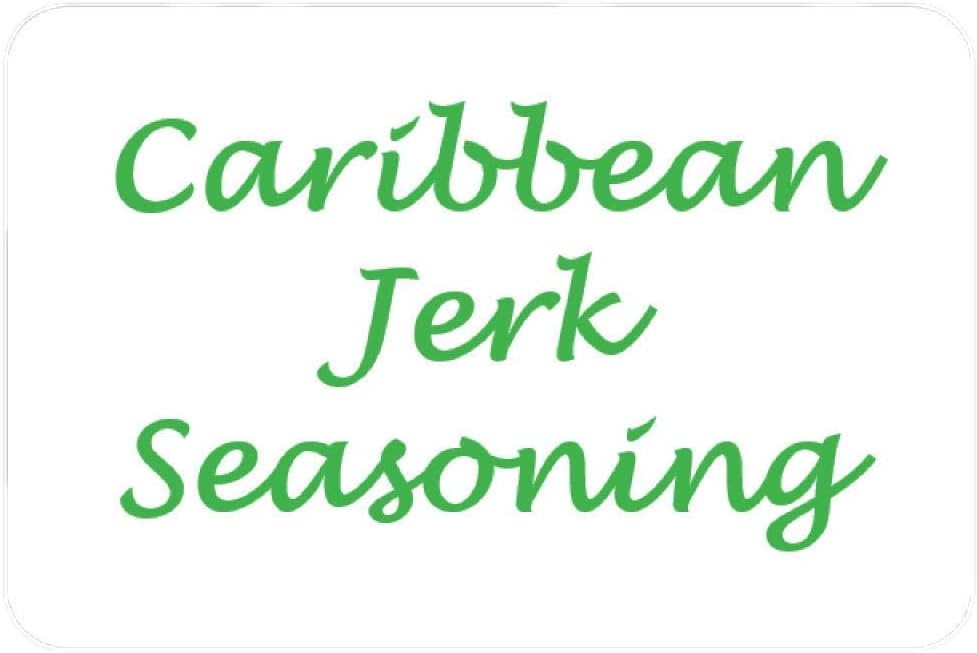
Lucida Handwriting Font
Lucida handwriting font. Introducing Lucida handwriting font!. Lucida Handwriting Italic is the perfect font for all your fun designs The font family is Lucida HandwritingAnd subfamily is Italic About the font Lucida Handwriting Italic is free for personal use only Please, talk with the author for commercial use or for any support.
Lucida Handwriting is a typeface designed by Kris Holmes and Charles Bigelow, and is available for Desktop, Web, DigitalAds, App, ePub, and Server Try, buy and download these fonts now!. You may copy the font from the computer which contains the LUCIDA font and paste the fonts in the font’s folder and check if you are able to use/work with the fonts Press Windows key E Click on the drive in which you have Windows 8 installed (Usually it is C Drive) Open the Windows folder Search for Fonts folder Paste the fonts in this folder. Lucida® Handwriting Font families The Lucida® Handwriting includes the following font families Lucida Handwriting Std Italic;.
Lucida Handwriting is a casual, connected script designed for smooth and fun reading on screens and in print Its relaxed personality and vigorous energy sends a distinctive message Keywords Fun, handwritten, Informal, Legible, Lucida, natural, relaxed, School, Script, vigorous Showing 1 80 of 256PrevNext has been added to your font request. Software Developers UI Fonts;. Making the web more beautiful, fast, and open through great typography.
Lucida® Handwriting font family Designed by Kris Holmes in 19 and Charles Bigelow in 19 Supports up to 50 languages Supports up to 5 OpenType features Lucida Handwriting is a casual, connected script designed for smooth and fun reading on screens and in print. Lucida Handwriting EF was designed by Kris Holmes and published by ElsnerFlake Lucida Handwriting EF contains 1 style More about this family. Microsoft Windows System Fonts;.